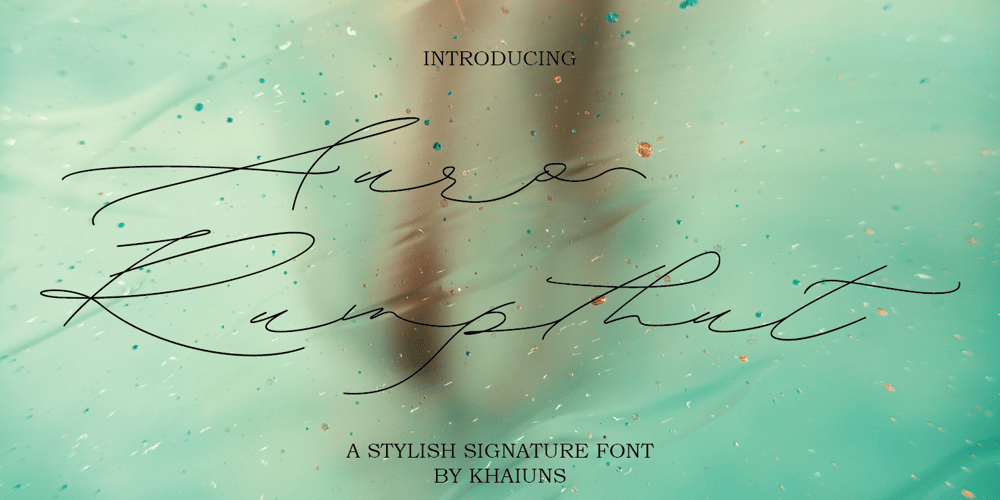
Auro Rumpthut
Auro Rumpthut font
Auro Rumpthut Font Family was designed by Khair Unnas and published by Khaiuns. Auro Rumpthut contains 1 styles and family package options. Auro Rumpthut is a modern calligraphy font with contemporary, sophisticated accents. It is perfect for logo, badge, packaging, headline, poster, t-shirt/apparel, greeting card, and wedding invitation. The flowing characters are ideal to make attractive messagesAuro Rumpthut includes full set of gorgeous uppercase and lowercase letters, numerals, a large range of punctuation and ligatures. All lowercase letters include beginning and ending swashes, giving realistic hand-lettered style. All uppercase letters include beginning swashes, that makes the font look fabulous!In order to use the beautiful swashes, you need a program that supports OpenType features such as Adobe Illustrator CS, Adobe Photoshop CC, Adobe Indesign and Corel Draw.Photoshop CC and higher have a glyph panel where you can access the swashes & alternates. Select the font and go to Window Glyphs and double-click on the glyph you want to use.For Illustrator choose Type Glyphs or Window Type & Tables Glyphs.Follow my instagram for update khaiunsThanks and have a wonderful day.